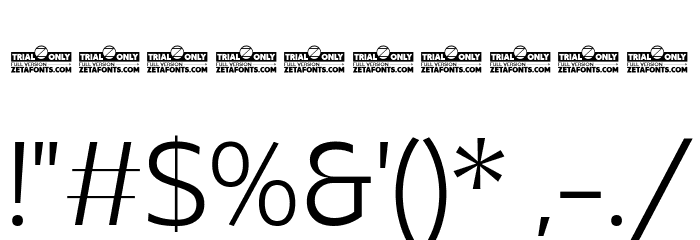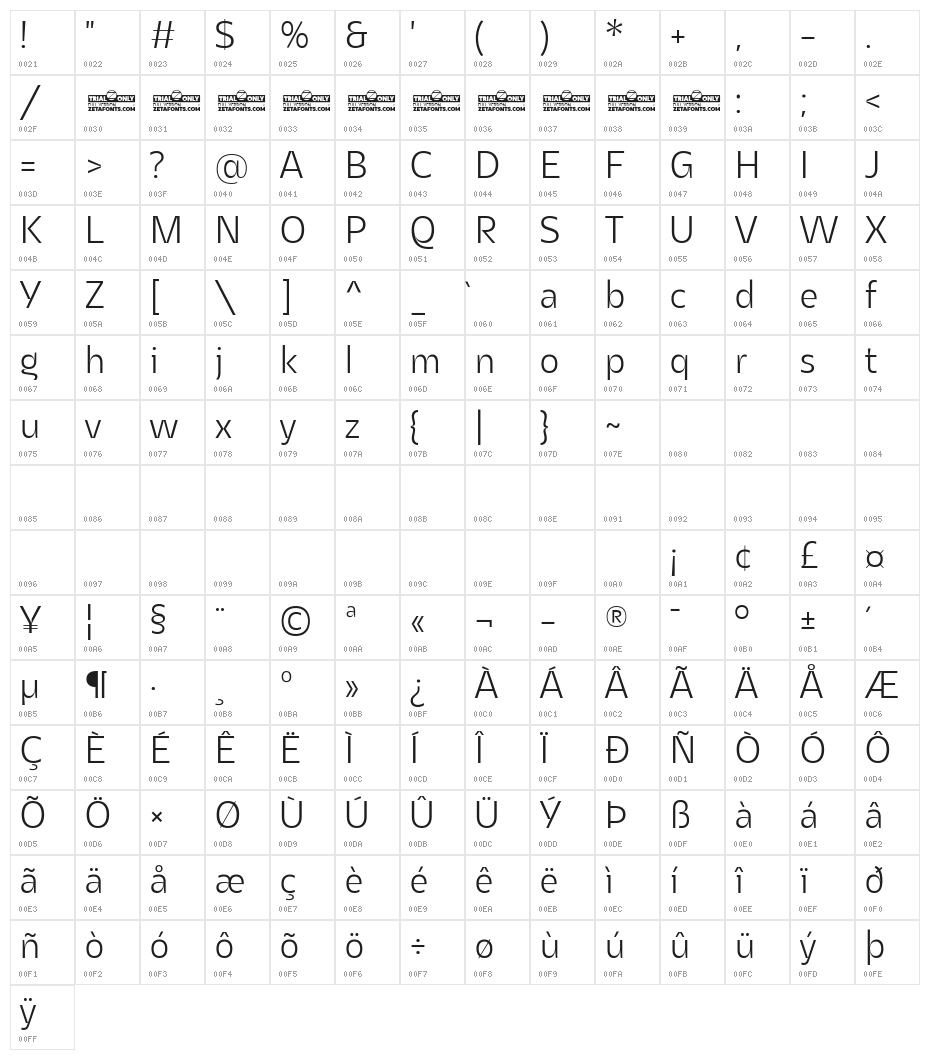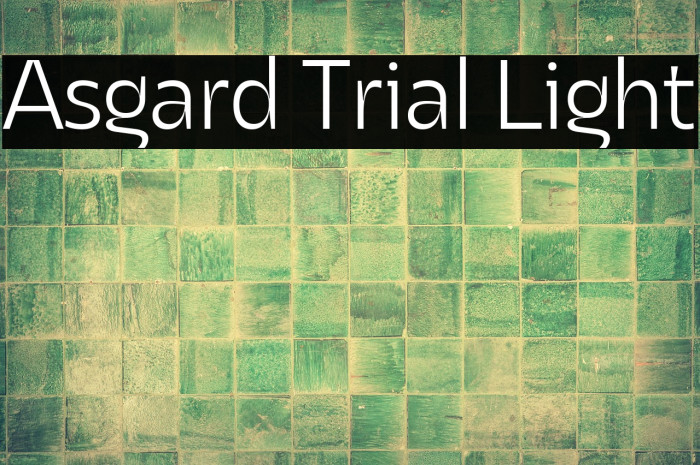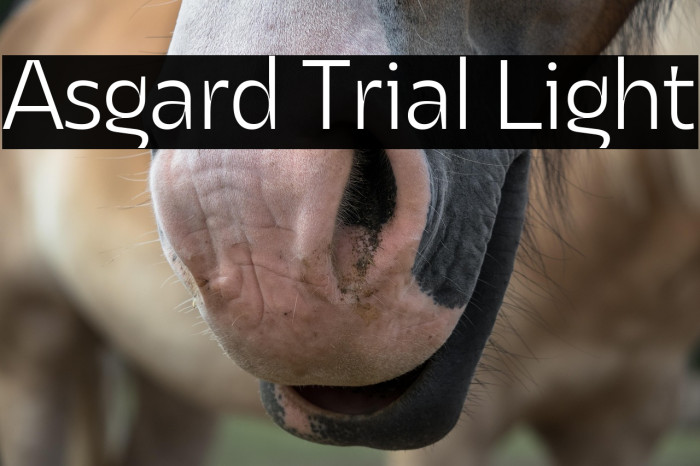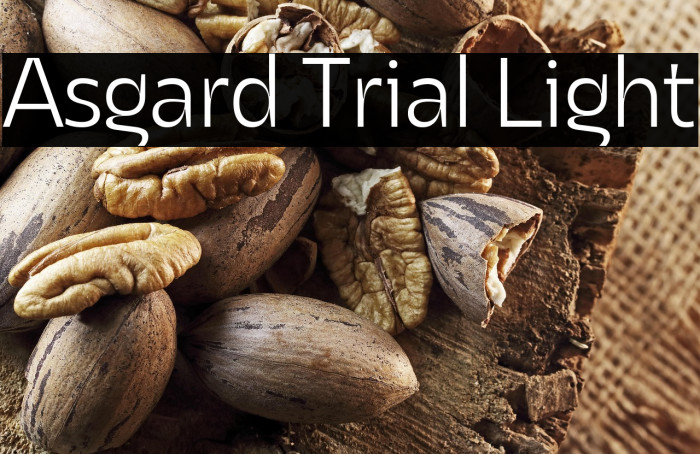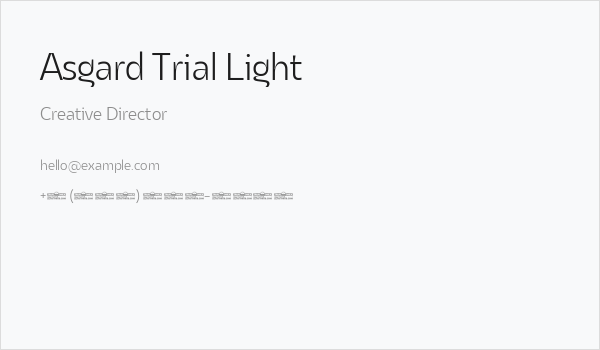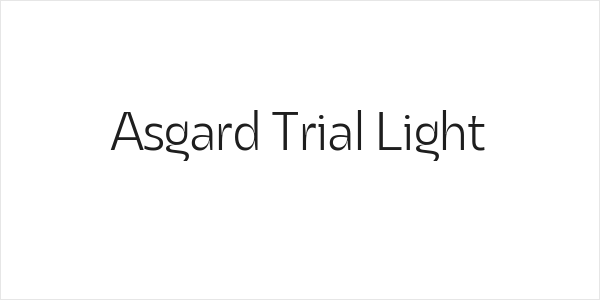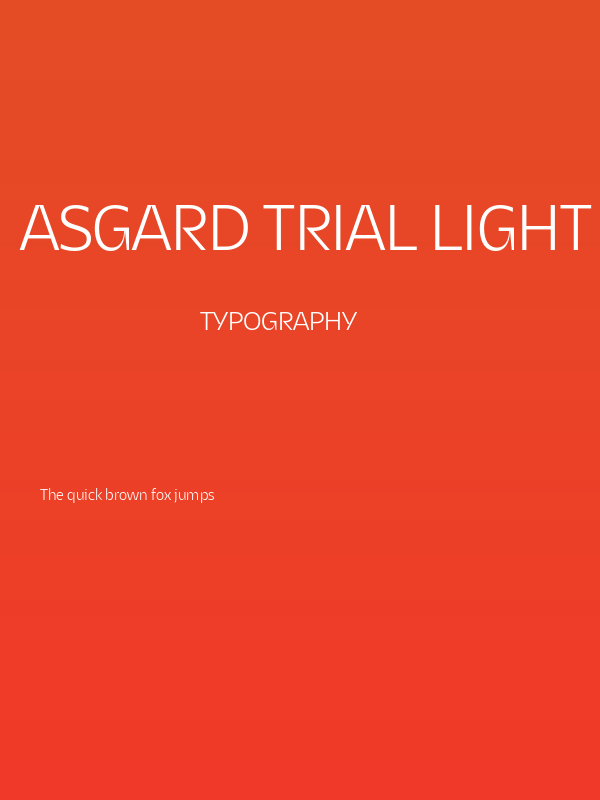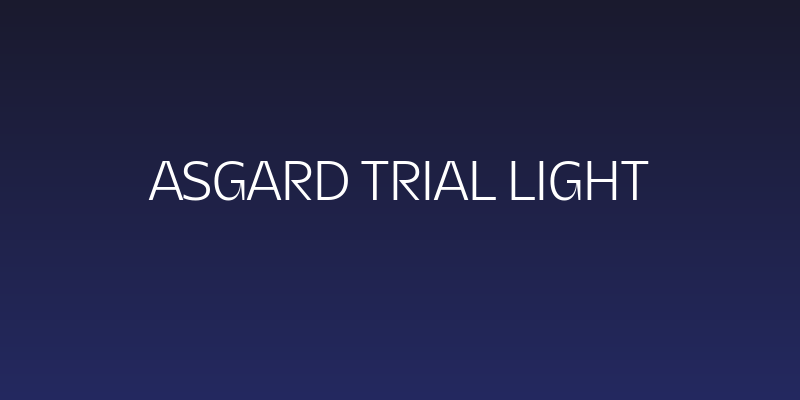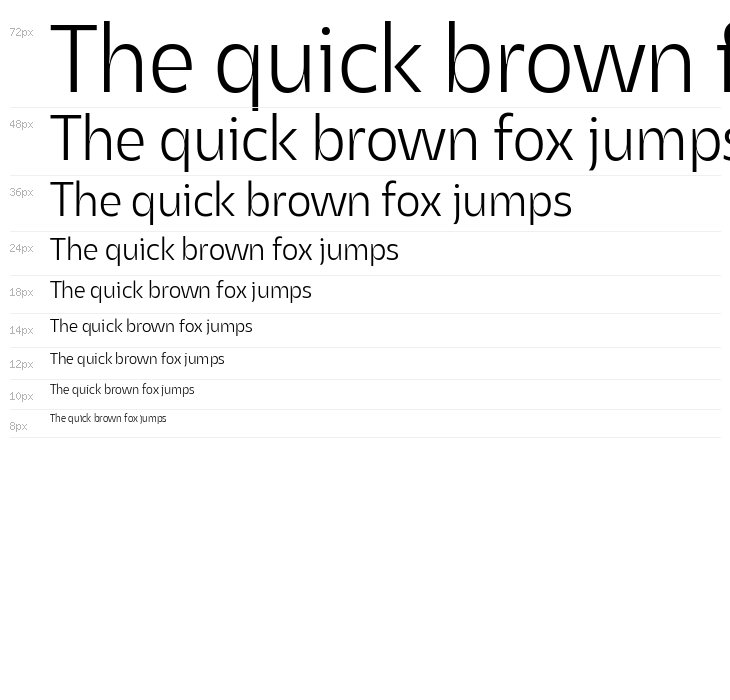
Asgard Trial Light Font
Asgard Trial Light Description
This font features a clean and modern sans-serif design with a light weight, making it ideal for minimalist and contemporary projects. The characters are well-proportioned with a consistent stroke width, offering a sleek and professional appearance. The uppercase and lowercase letters maintain a uniform style, enhancing readability. Special characters and numbers are designed with the same attention to detail, ensuring a cohesive look across all text elements. The font's simplicity and elegance make it versatile for various design applications.
| Proposed Projects | Ideal for branding, web design, corporate materials, and editorial layouts. |